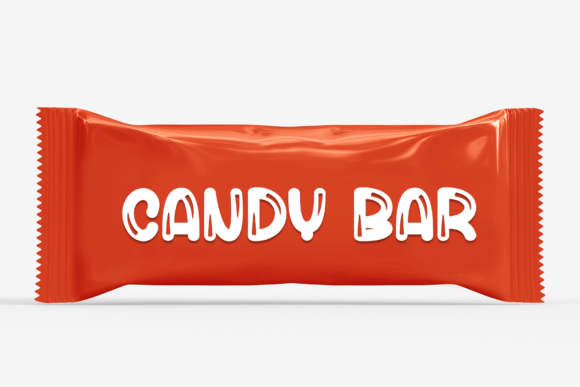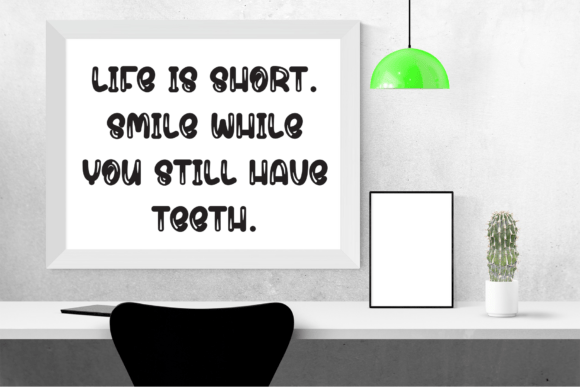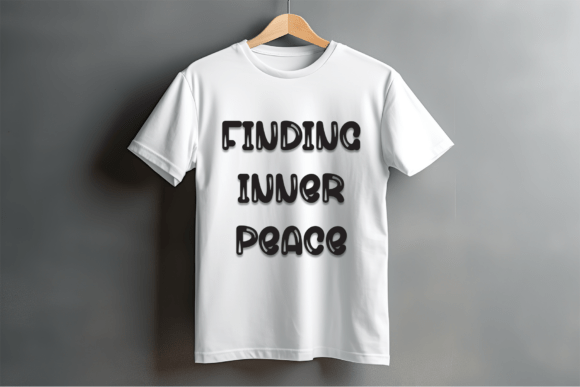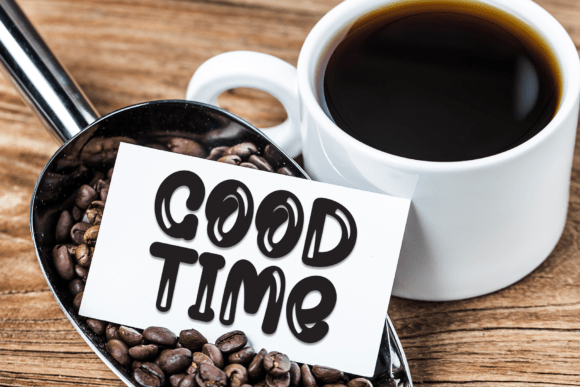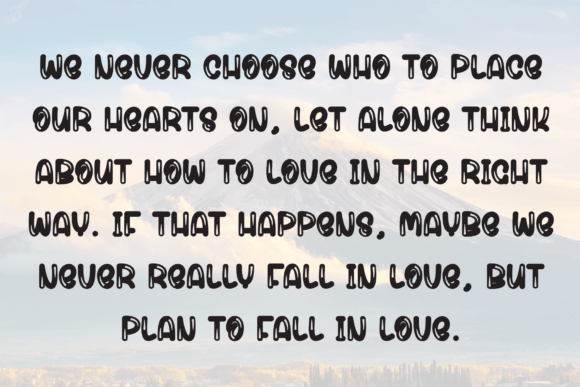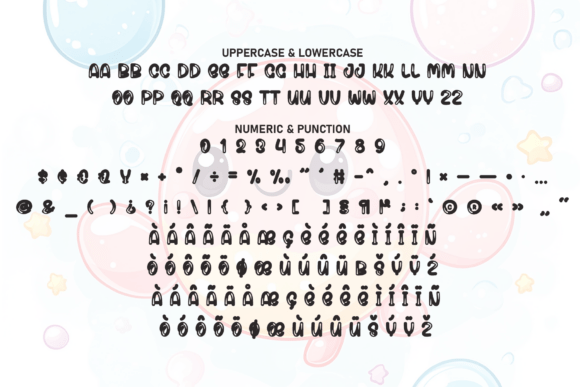
Cutes Bubble Font: The Playful and Quirky Display Font for Creative Projects
Are you looking for a font that can add a touch of playfulness and personality to your designs? Look no further than Cutes Bubble Font! This quirky and bubbly display font is perfect for children’s products, playful branding, cartoons, and toy packaging. In this article, we’ll take a closer look at what makes Cutes Bubble Font so special and how you can use it to take your designs to the next level.
The Unique Characteristics of Cutes Bubble Font
Cutes Bubble Font is a one-of-a-kind display font that stands out from the crowd with its chunky shapes and creative ink-drop detailing. The font’s bold and bubbly appearance makes it perfect for designs that require a playful and eye-catching touch. The ink-drop detailing adds a touch of whimsy and personality to the font, making it ideal for creative projects that need to pop.
Perfect for Children’s Products and Playful Branding
Cutes Bubble Font is a natural fit for children’s products and playful branding. The font’s fun and bubbly appearance is sure to appeal to kids and parents alike, making it perfect for designs such as:
- Children’s toys and games
- Kids’ clothing and accessories
- Playful branding and packaging
- Children’s books and educational materials
The font’s playful personality also makes it a great choice for cartoon and animation projects, adding a touch of fun and whimsy to your characters and storylines.
Adding a Touch of Personality to Your Designs
Cutes Bubble Font is more than just a font – it’s a design statement. The font’s unique personality and playful appearance can add a touch of personality to your designs, making them stand out from the crowd. Whether you’re designing for a children’s product or a playful brand, Cutes Bubble Font can help you create a design that’s both fun and memorable.
Tips for Using Cutes Bubble Font
Here are a few tips for using Cutes Bubble Font in your designs:
- Use it as a headline font to add a touch of personality to your design
- Pair it with a simpler font for body text to create a fun and playful contrast
- Don’t be afraid to get creative and add your own unique twist to the font
Why Designers and Crafters Love Cutes Bubble Font
Designers and crafters love Cutes Bubble Font for its unique personality and versatility. The font is easy to use and can be applied to a wide range of design projects, from children’s products to playful branding. The font’s playful appearance also makes it a great choice for crafters who want to add a touch of personality to their handmade projects.
Cutes Bubble Font is a quirky and bubbly display font that’s perfect for designers and crafters who want to add a touch of personality to their designs. With its chunky shapes and creative ink-drop detailing, this font is sure to pop with personality. Whether you’re designing for a children’s product, playful branding, or just want to add a touch of whimsy to your design, Cutes Bubble Font is the perfect choice.